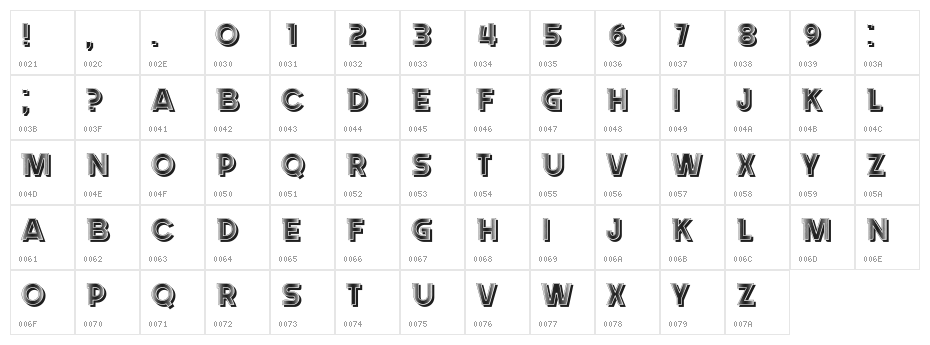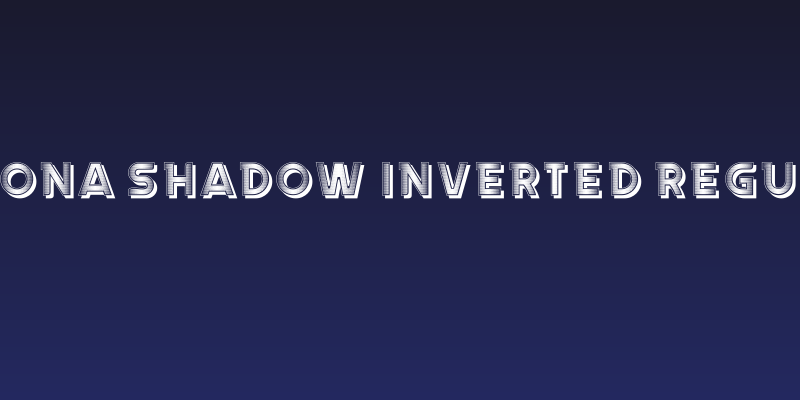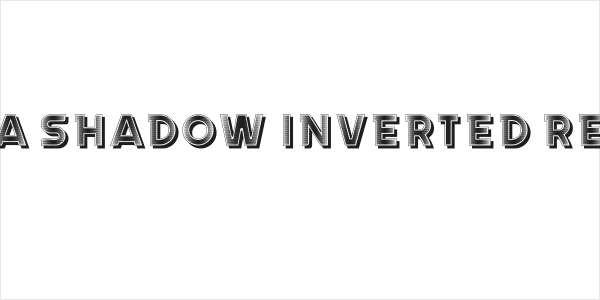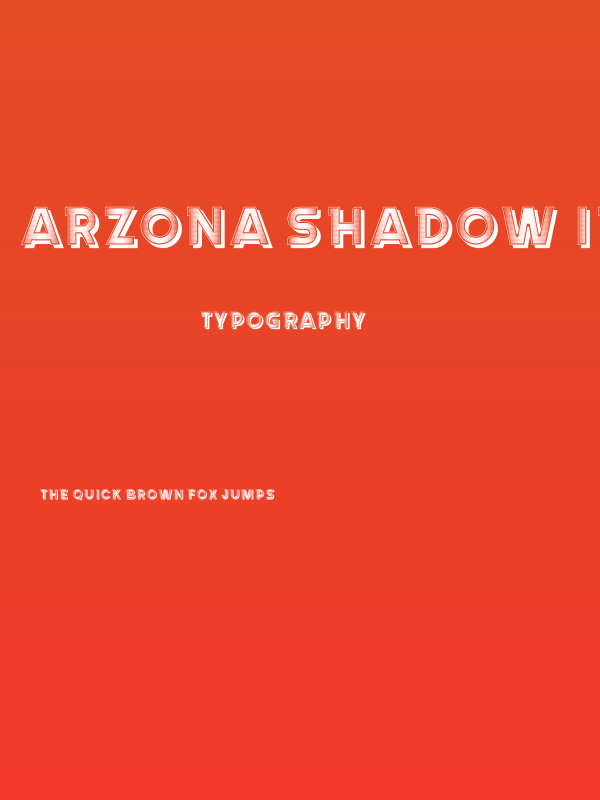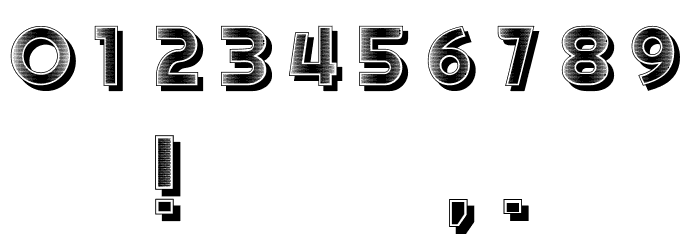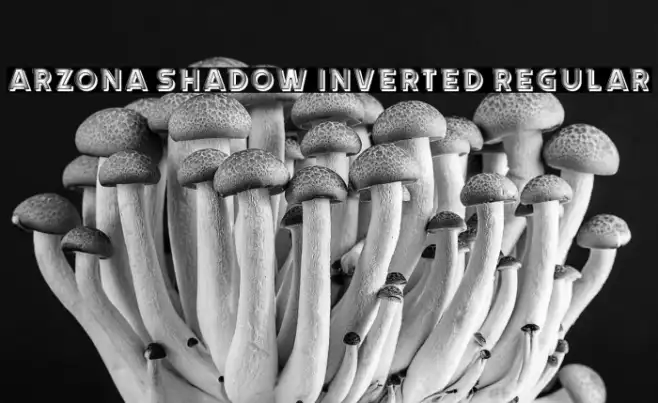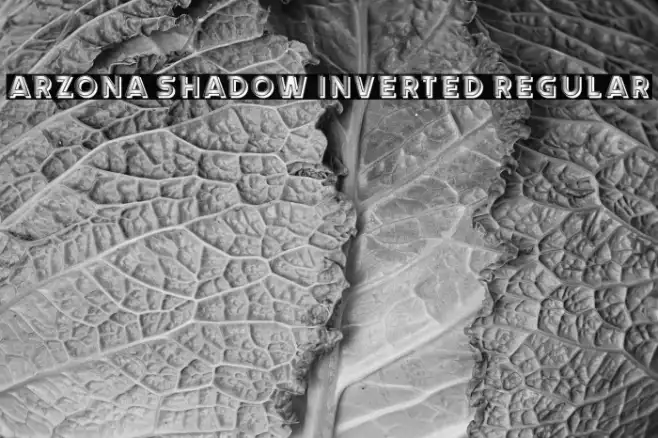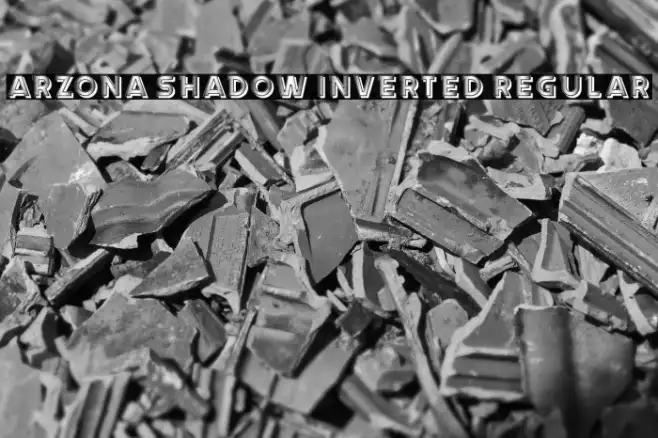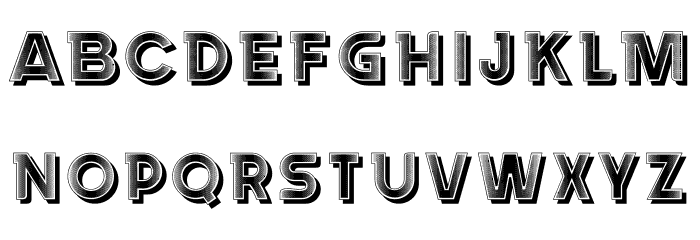
Arzona Shadow Inverted Regular Font
Arzona Shadow Inverted Regular Description
This font features a bold and striking design with a shadow effect that gives it a three-dimensional appearance. The letters are uppercase and have a strong geometric structure, with clean lines and sharp angles. The shadow is inverted, creating a unique visual effect that adds depth and interest. The font is highly legible and makes a strong impact, suitable for attention-grabbing headlines or titles. The numbers and special characters follow the same design principles, ensuring consistency across all elements.
| Proposed Projects | Ideal for posters, logos, and branding materials where a strong visual impact is desired. |